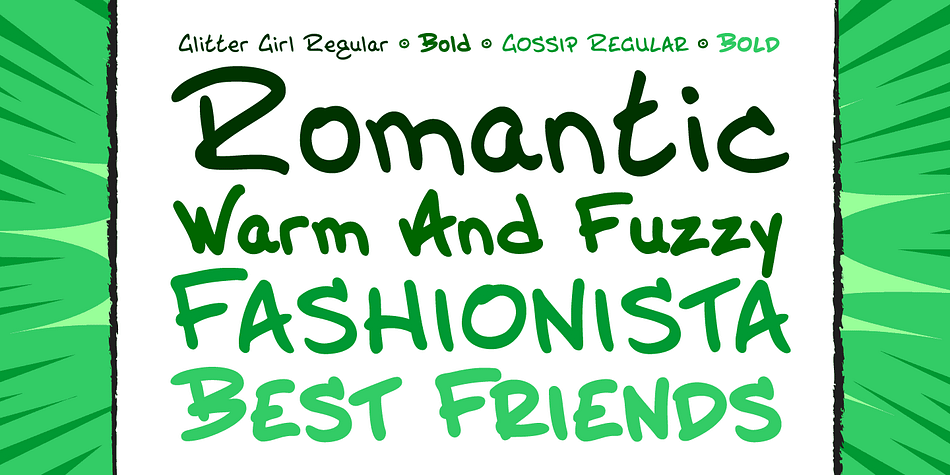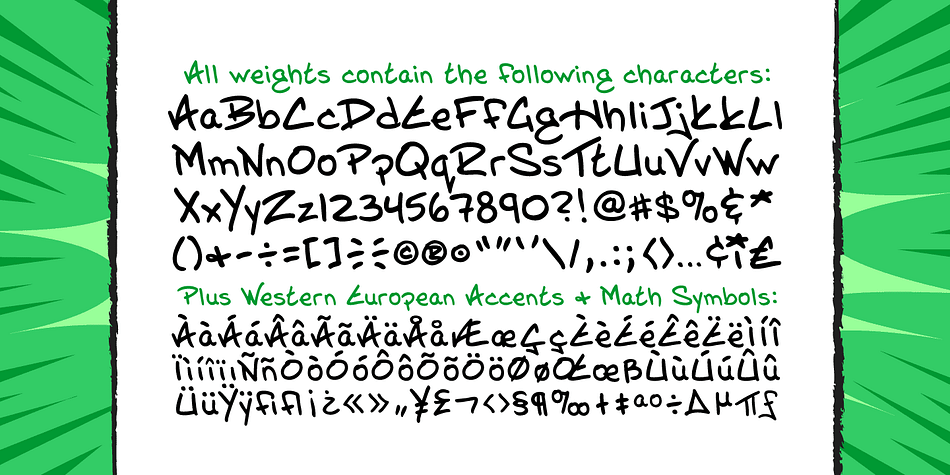
Designed by John Roshell, Glitter Girl is a hand drawn font family. This typeface has four styles and was published by Comicraft.
Glitter Girl is a naive but romantic and flirty face with fragments of tinsel in its hair. Here’s a font with a fresh attitude dressed in frilly flowing flower child fabrics sparkling with sequins. If you’re looking for a light feminine aesthetic to grace your chic fashionista blog or livejournal, give it a little Glitter Girl Gossip, a safe text with long legs that will treat your thoughts with a twinkle and a touch of magic.
These two fonts are BFF—chic, cozy, clean, warm and fuzzy. Best Fonts for Facebook statements you want to share with your social network!